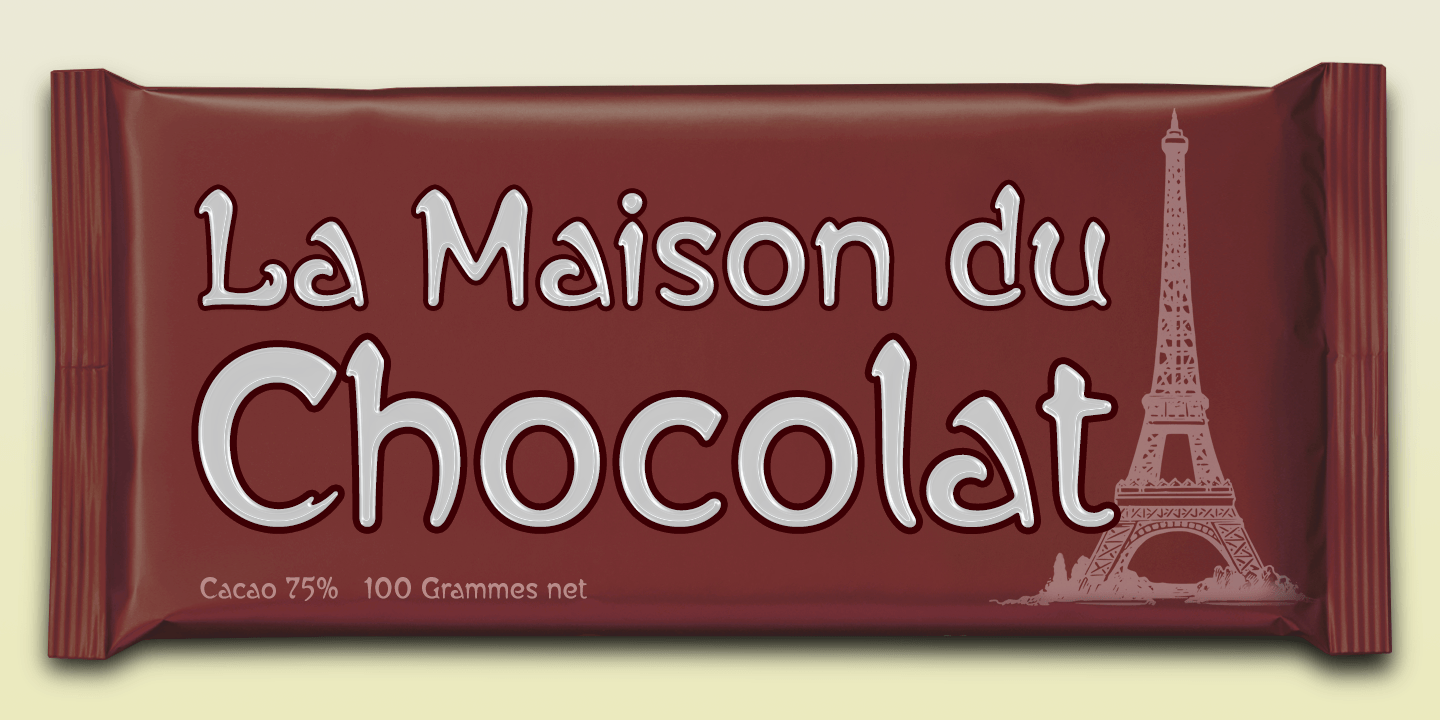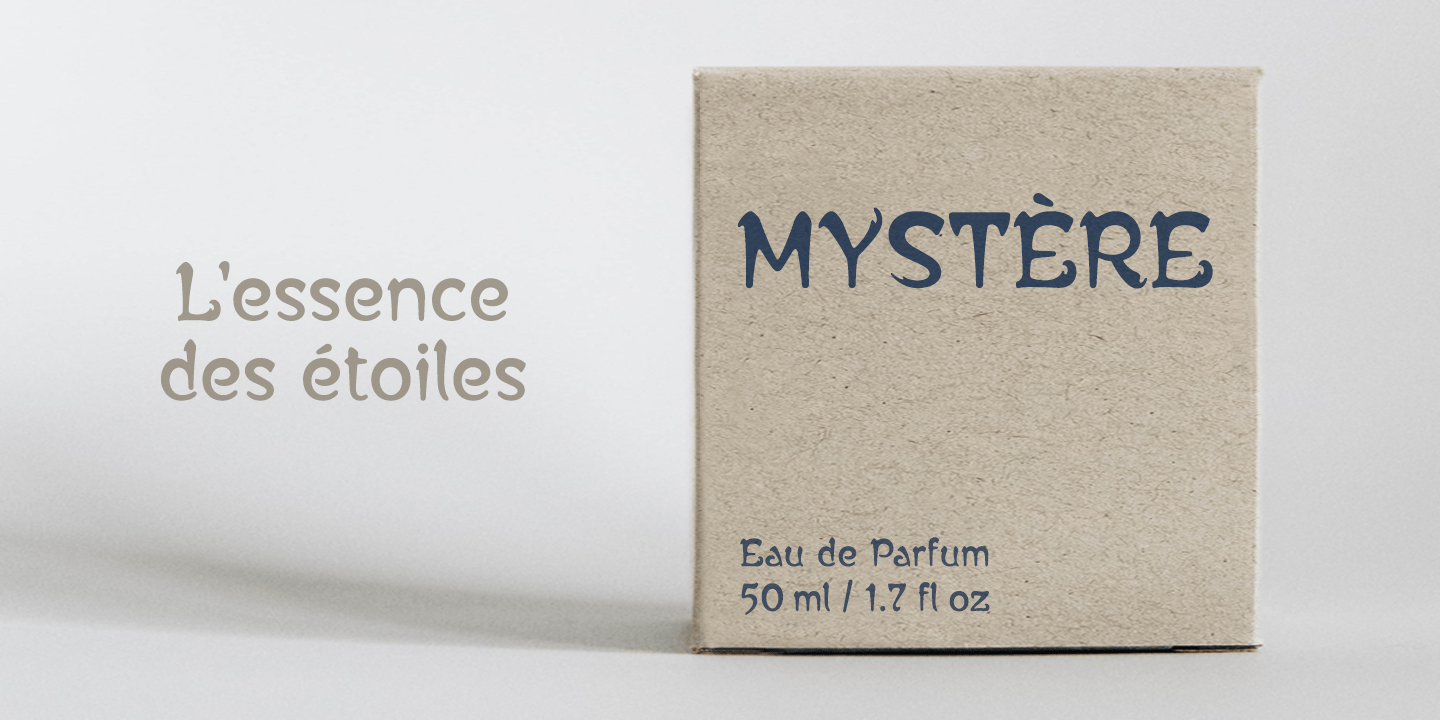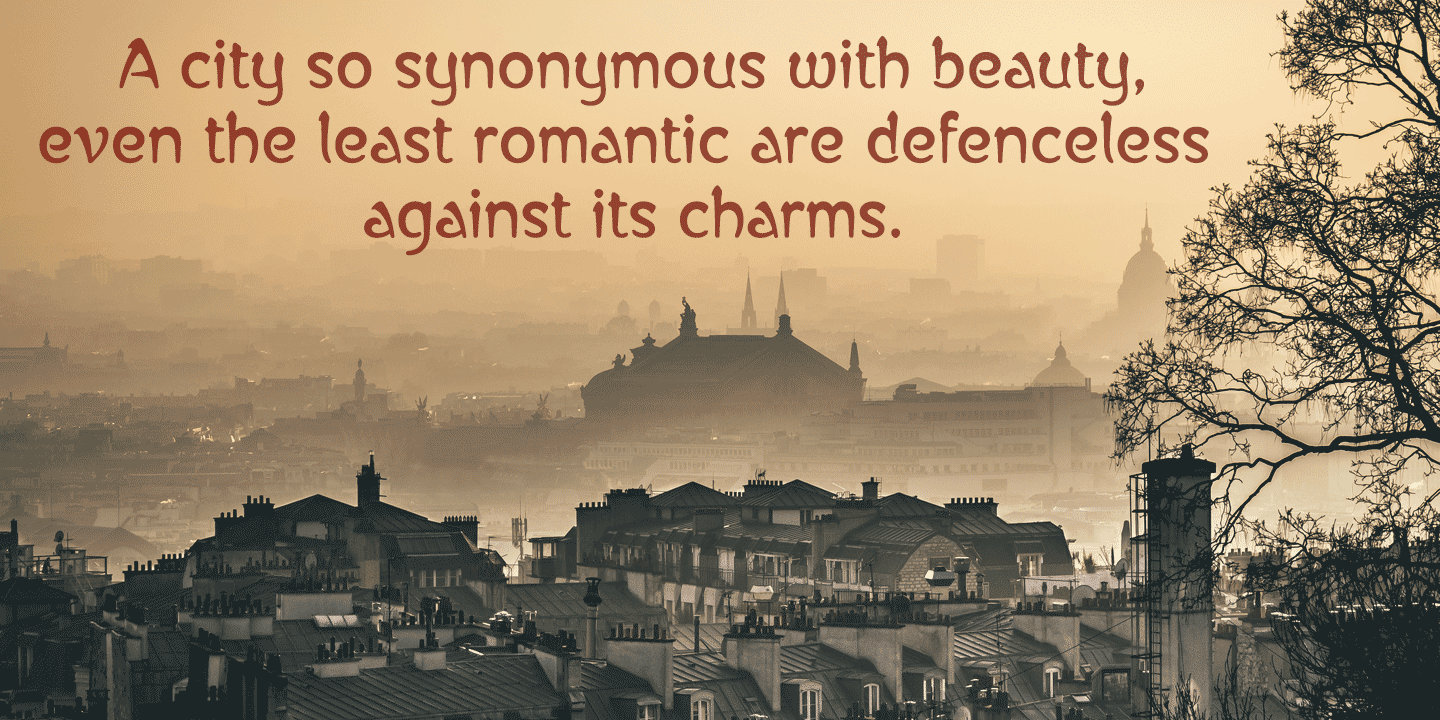
About Alphonse Mucha
Alphonse Mucha is a decorative display font in the Art Nouveau style which originated over a century ago. The font is extrapolated from just nine capital letters in Mucha's 1913 concert poster for the cellist Zdeňka Černý. Letters and numerals…